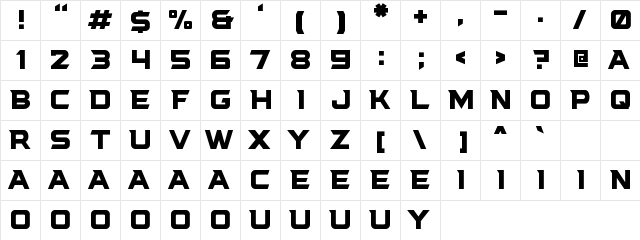
Poggers Bold
| Designer | Travis Howell - Creative Grenade |
Design Context for Poggers Typeface
Poggers takes a measured approach to typography — its balanced proportions and neutral character make it a reliable workhorse for both digital and print work. The heavy weight commands attention and anchors typographic hierarchies.